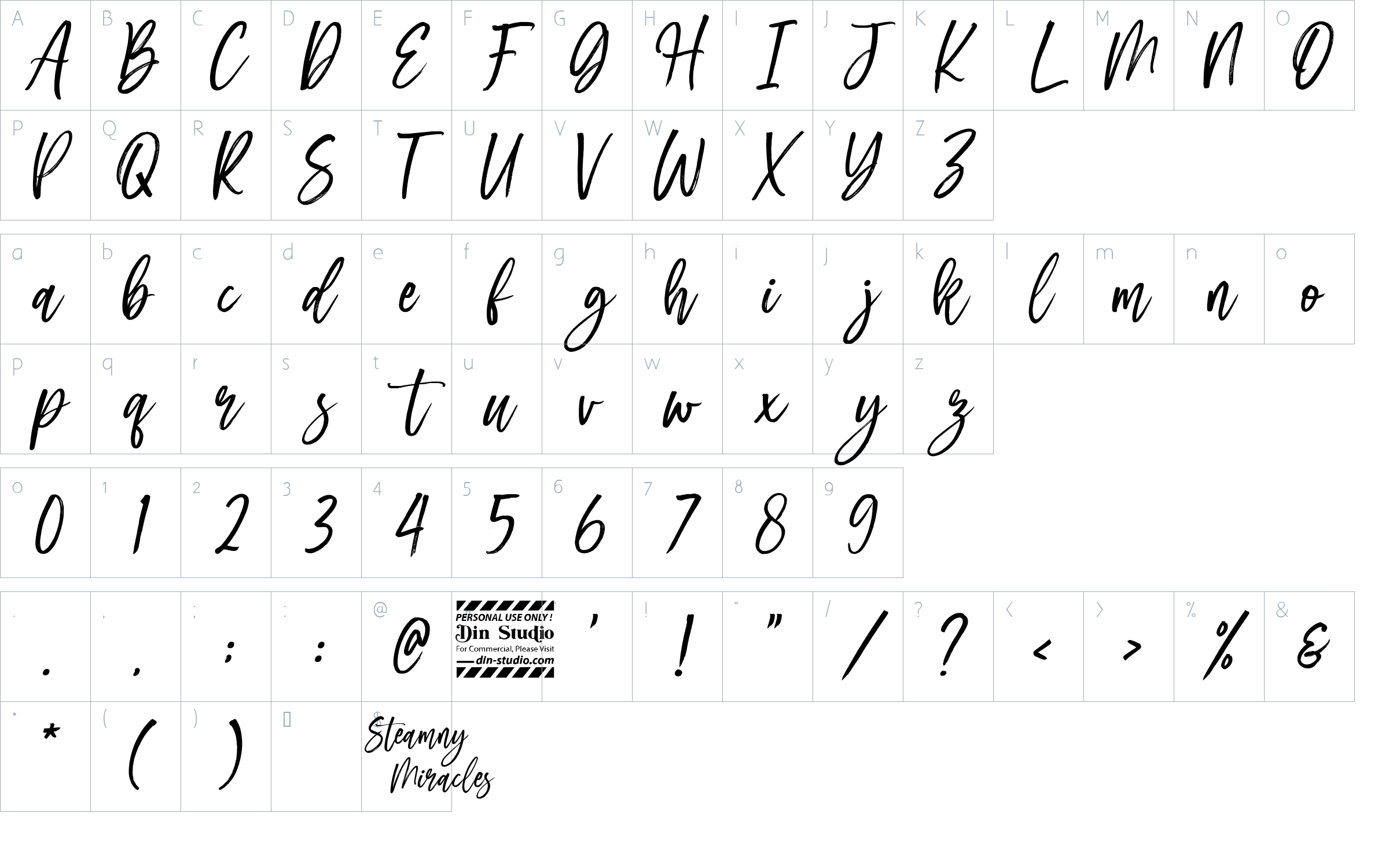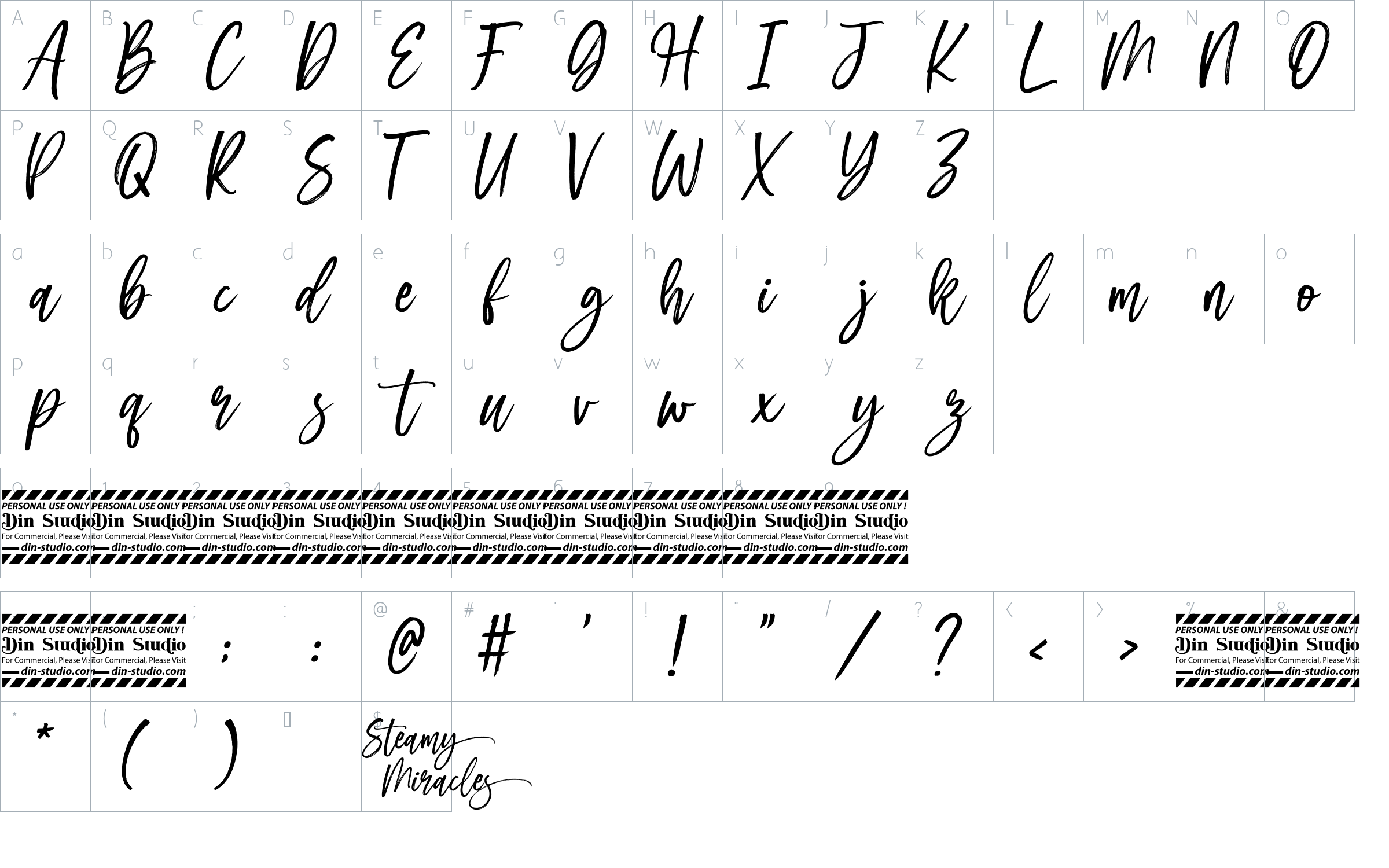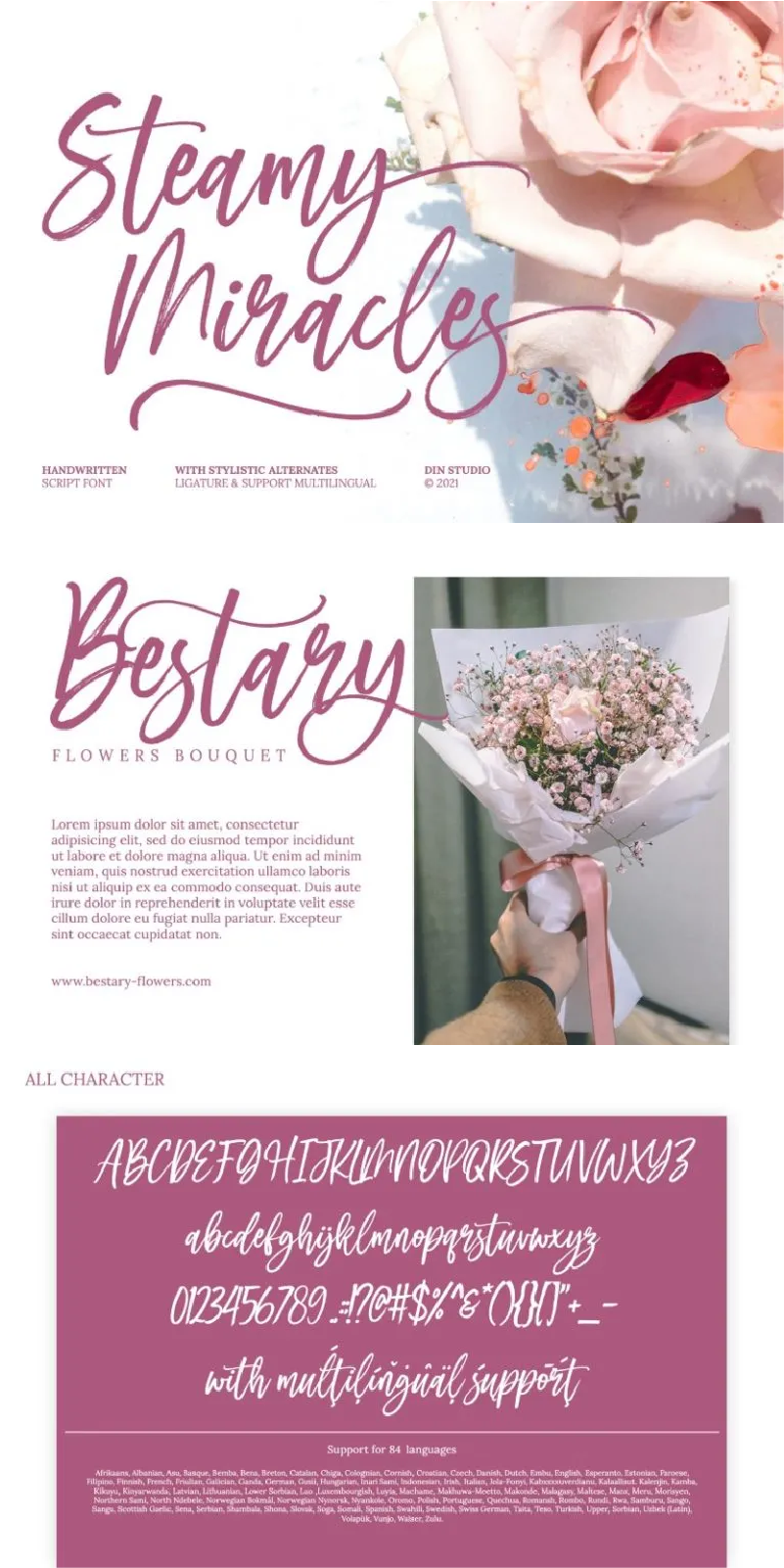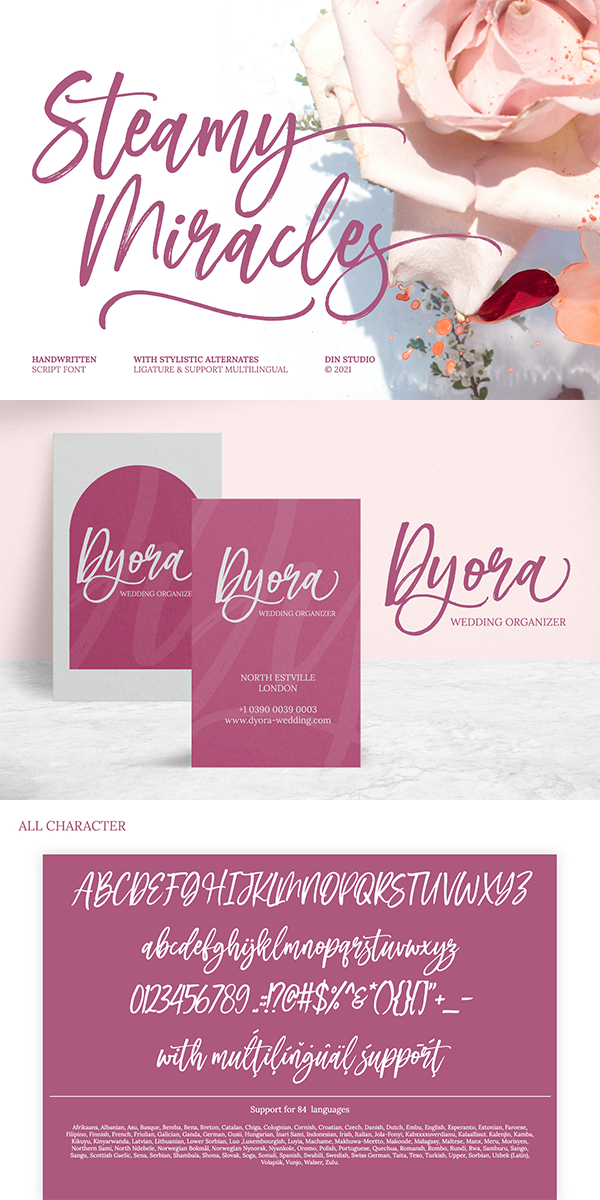
Steamy Miracles Font
About Steamy Miracles
Steamy Miracles-A Handwritten Font
A beautifully handcrafted font that’ll make your guests sing and elevate your projects!
Every swash, stroke, and curve was created to entice happiness and elegance. The ideal font for social media banners; posts, and ads, printed quotes, t-shirt designs, packaging, or even as a modern text overlay to any background image.
Our font always includes Multilingual Support to make your branding reach a global audience.